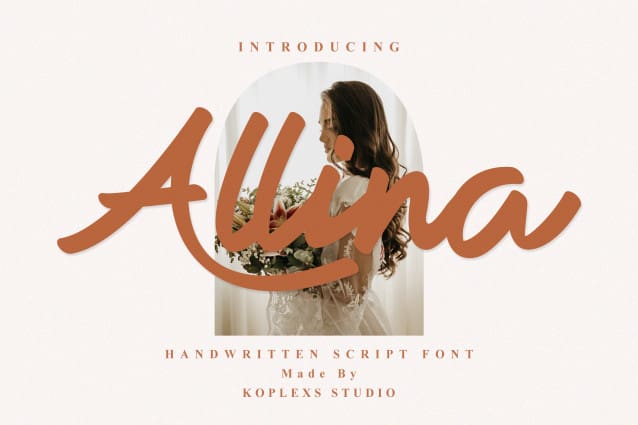
Allina Bold Script Font
Allina Bold Script Font is a Signature Bold Script Font. It’s perfect for logos, invitations, stationery, wedding designs, social media posts, advertisements, product packaging, product designs, labels, photography, watermarks, special events, or whatever.
Allina Bold Script Font would perfect for photography, watermark, social media posts, advertisements, logos & branding, invitation, product designs, label, stationery, wedding designs, product packaging, special events or anything that need handwriting taste.
| Designer Name: | koplexsstudio |